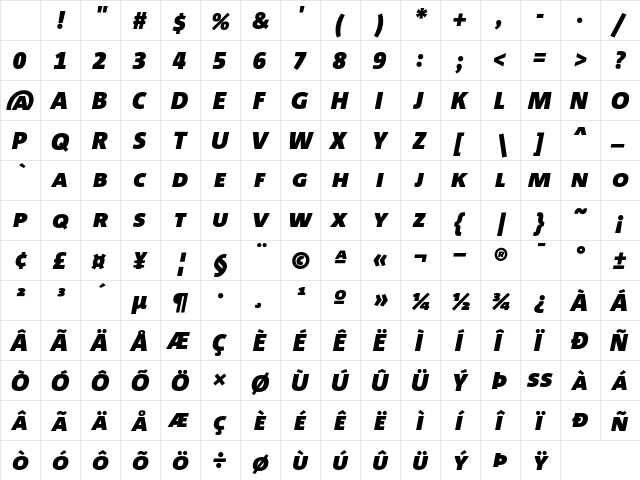
Complete Corpid Caps Black Italic glyph index. Displaying only characters natively supported by Corpid Caps Black Italic font.
Corpid Caps is a composed and adaptable typeface that performs quietly and consistently across a wide range of design contexts. The slanted form adds forward momentum and visual energy.